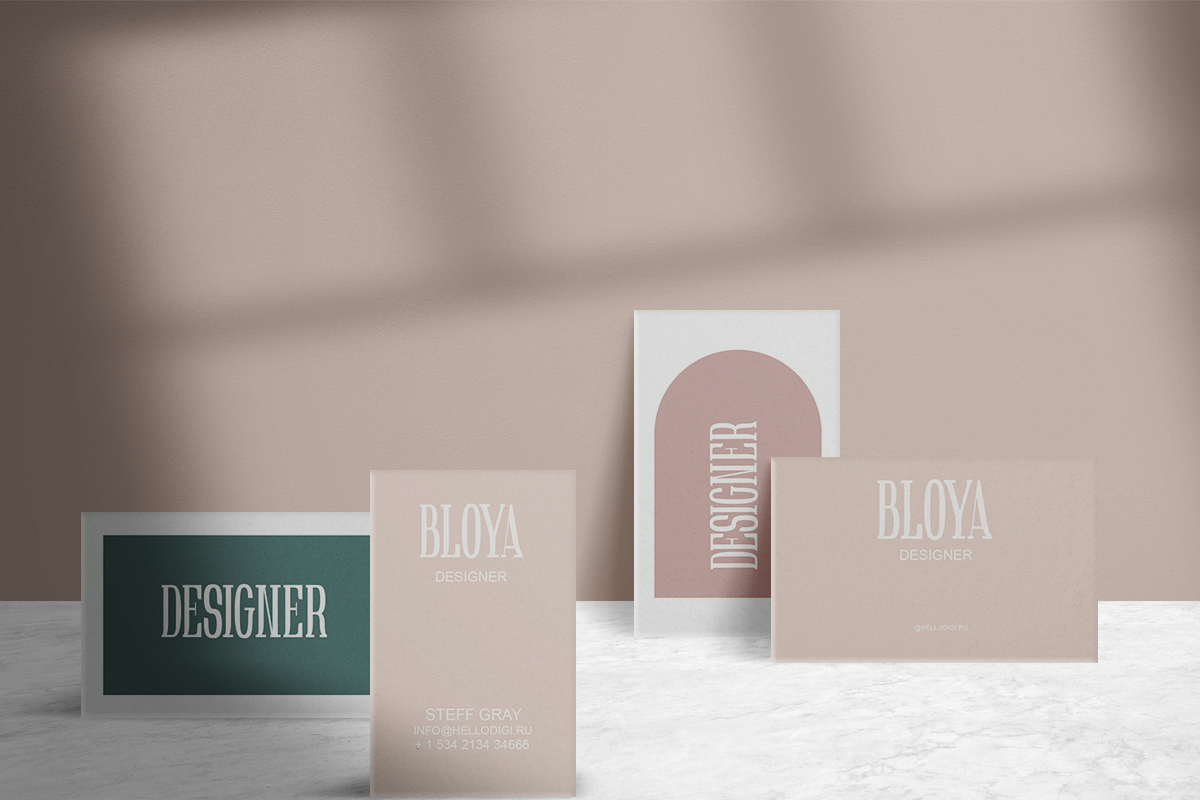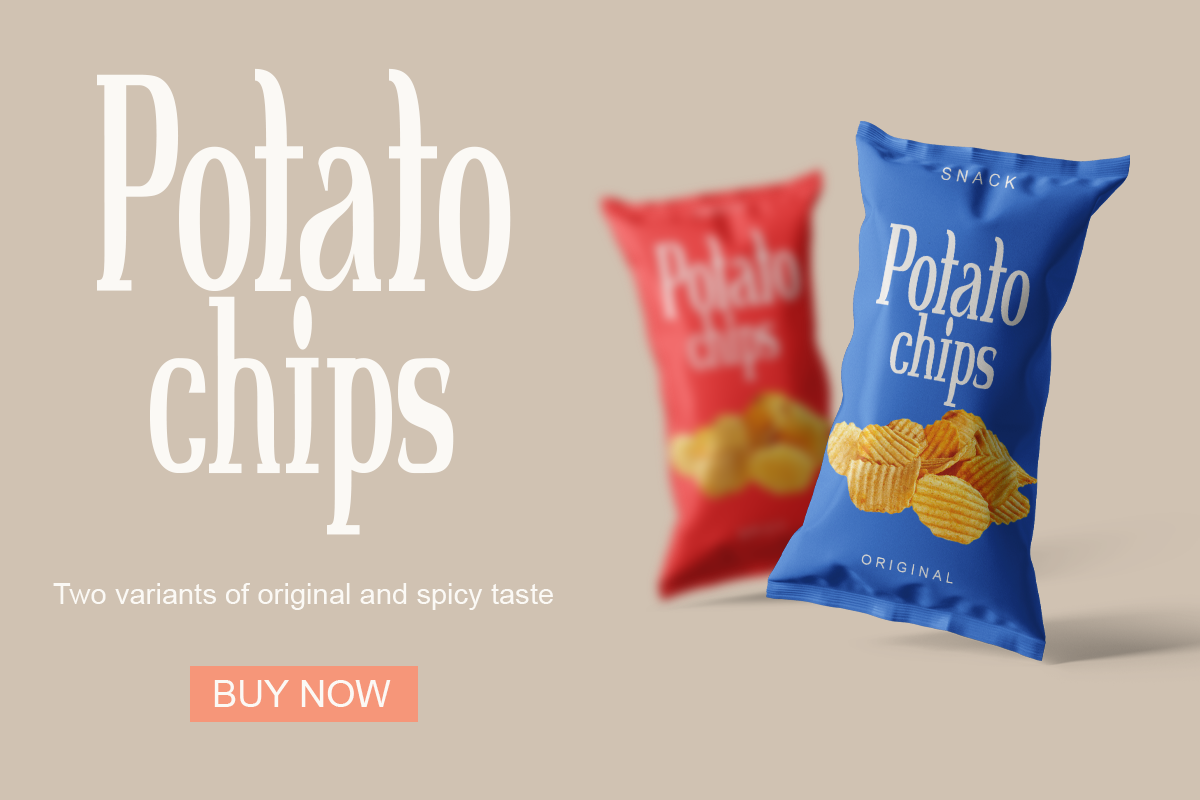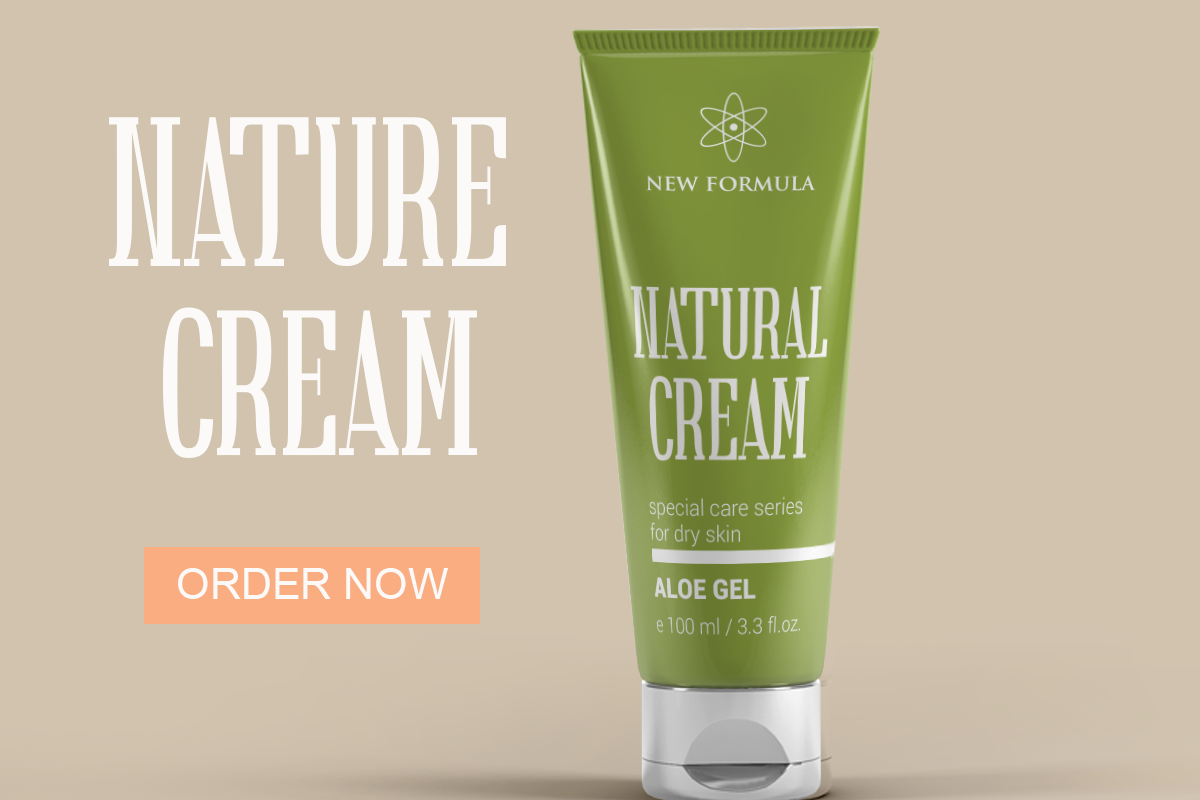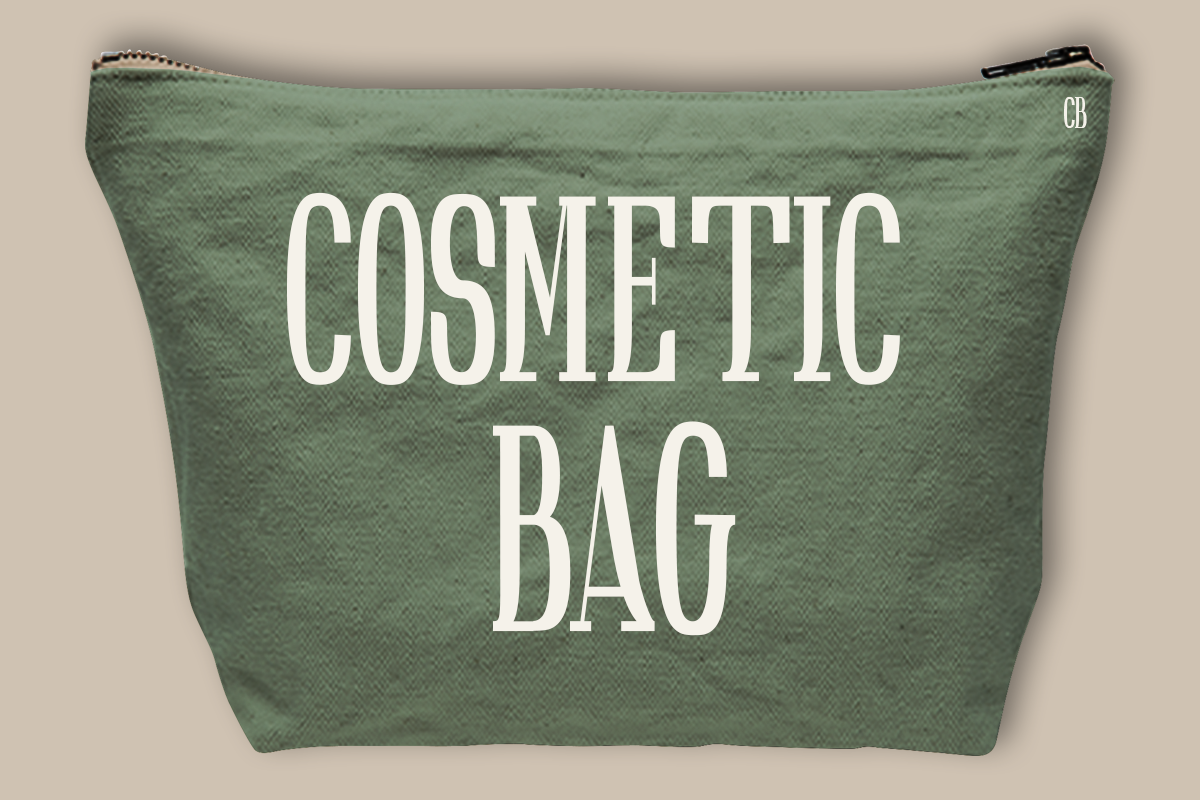
Dear Lewis Free Font
Introducing Dear Lewis Free Font, a vintage and tall serif font that brings a timeless charm to your designs. Whether it’s for any theme or project, this font proves to be a valuable addition to your font library, elevating the aesthetic of any creation. This free typeface was designed by a talentedΒ Display Studio. If you like it don’t forget to check out the full version.